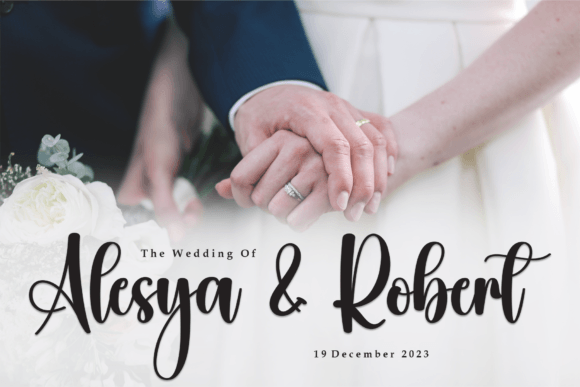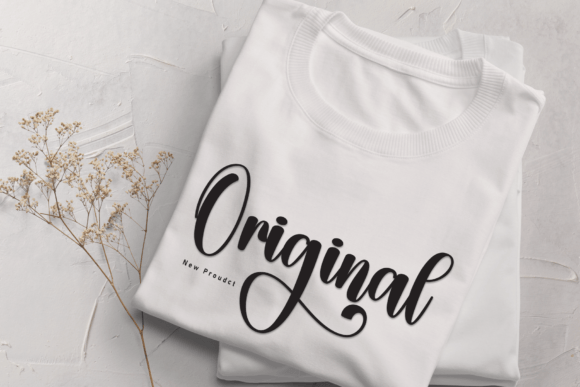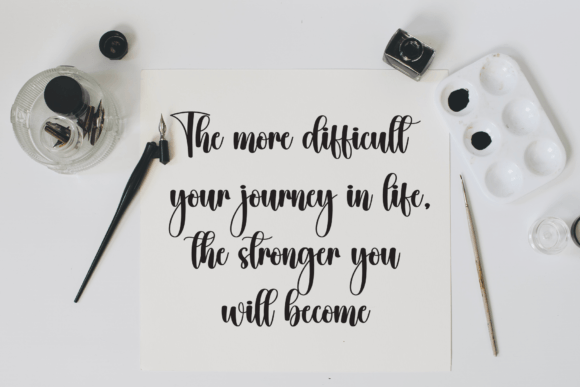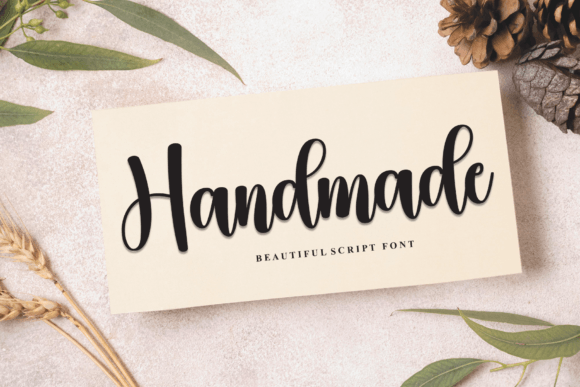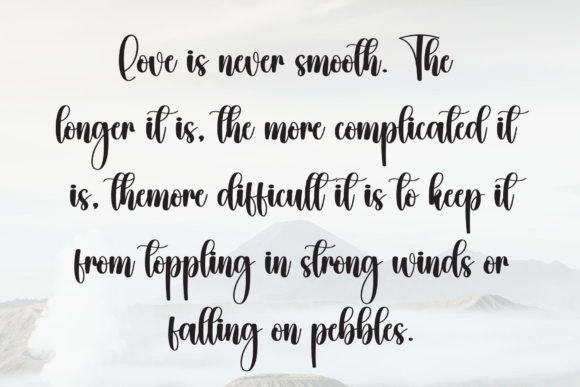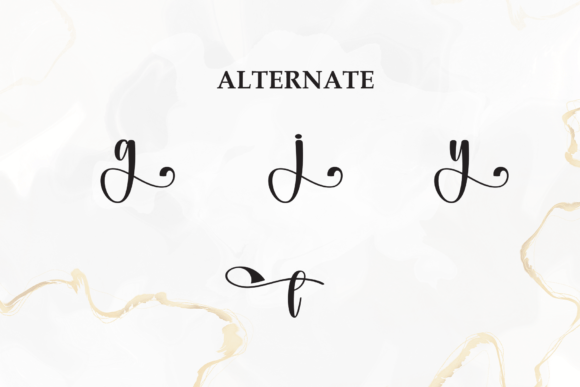
Elegantly Font: The Sweet and Friendly Handwritten Font for Your Design Needs
Are you a designer or crafter looking for a font that can add a touch of elegance and friendliness to your projects? Look no further than the Elegantly font. This beautiful handwritten font is perfect for a wide range of designs, from wedding invitations and party decorations to branding and marketing materials. In this article, we’ll take a closer look at the Elegantly font, its features, and how you can use it to elevate your designs.
What is Elegantly Font?
Elegantly is a sweet and friendly handwritten font that is designed to bring a touch of natural elegance to your designs. Its unique style is inspired by the imperfections and quirks of handwriting, making it incredibly fitting for a large pool of designs. Whether you’re creating a romantic wedding invitation or a playful party decoration, the Elegantly font is sure to add a touch of warmth and personality to your project.
Features of Elegantly Font
So, what makes the Elegantly font so special? Here are just a few of its key features:
- Handwritten style: The Elegantly font is a true handwritten font, with all the imperfections and quirks that make it feel natural and unique.
- Natural and elegant: The font has a natural, elegant feel that’s perfect for designs that need a touch of sophistication.
- Versatile: The Elegantly font is incredibly versatile, making it suitable for a wide range of designs, from formal to informal.
- Easy to read: Despite its elegant style, the font is easy to read, making it perfect for body text as well as headlines.
How to Use Elegantly Font in Your Designs
So, how can you use the Elegantly font in your designs? Here are a few ideas to get you started:
- Wedding invitations: The Elegantly font is perfect for wedding invitations, adding a touch of romance and elegance to your design.
- Party decorations: Use the font to create playful and festive party decorations, such as banners, garlands, and gift tags.
- Branding and marketing: The Elegantly font is also great for branding and marketing materials, such as logos, business cards, and brochures.
- DIY projects: If you’re a crafter or DIY enthusiast, the Elegantly font is perfect for a wide range of projects, from scrapbooking to card making.
Tips for Getting the Most Out of Elegantly Font
Here are a few tips for getting the most out of the Elegantly font:
- Experiment with different sizes and colors: Don’t be afraid to experiment with different sizes and colors to find the perfect combination for your design.
- Pair it with other fonts: The Elegantly font pairs well with other fonts, so don’t be afraid to try combining it with other styles to create a unique look.
- Use it consistently: To create a cohesive look, use the Elegantly font consistently throughout your design.
In conclusion, the Elegantly font is a beautiful and versatile handwritten font that’s perfect for a wide range of designs. Its natural and elegant style makes it incredibly fitting for designs that need a touch of sophistication, while its playful and friendly feel makes it perfect for more informal projects. Whether you’re a designer or crafter, the Elegantly font is sure to become a favorite in your collection.